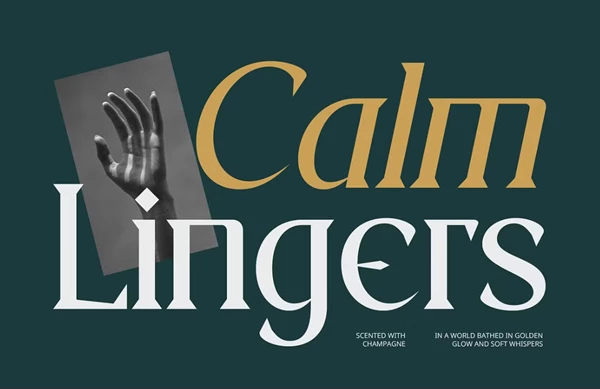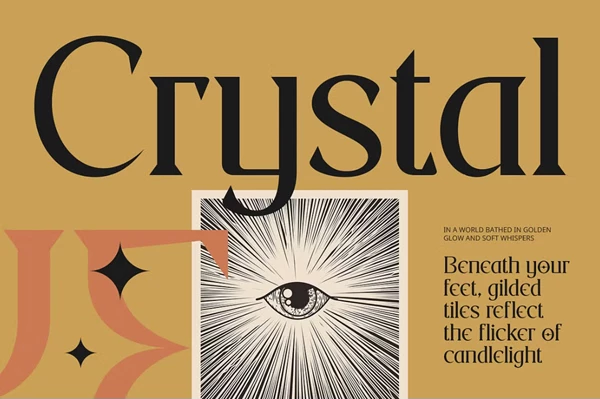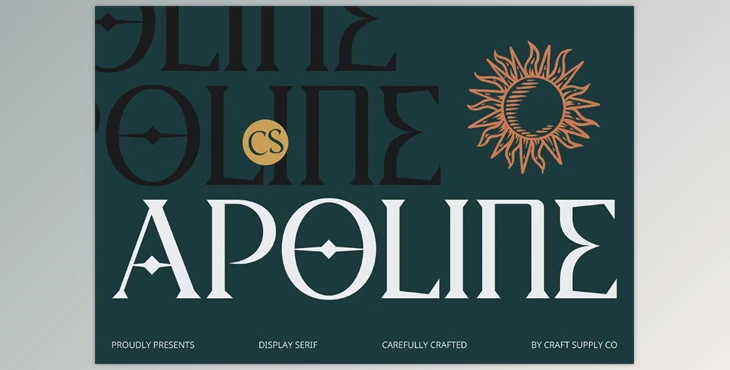
Apoline – Classic Font:
CS Apoline is a modern serif font that connects traditional and contemporary design. With thin yet crisp characters and small, clean serifs, it appeals to the visual reader who enjoys both a vintage look and a modern twist.
Some great features of Apoline – Classic Font:
- Uppercase and Lowercase Provided
- Multilingual Characters with Accents Provided
"Apoline – Classic Font" Samples: